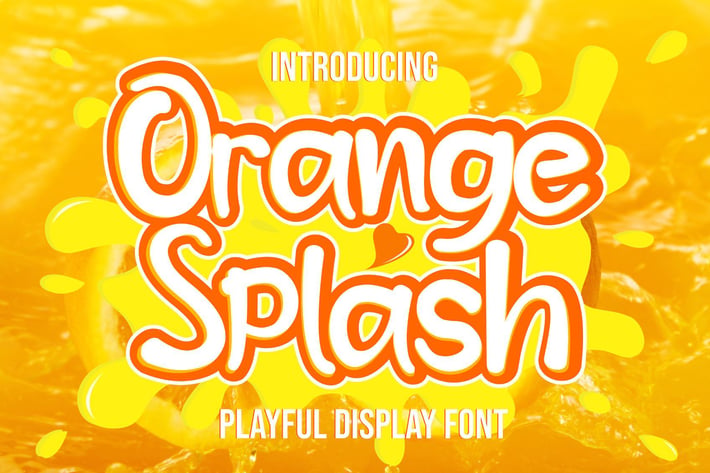
Orange Splash - Fresh Summer Font
Orange Splash is a fun and charming display font. Its simple and friendly style makes this design incredibly versatile, fitting a wide variety of creative ideas.